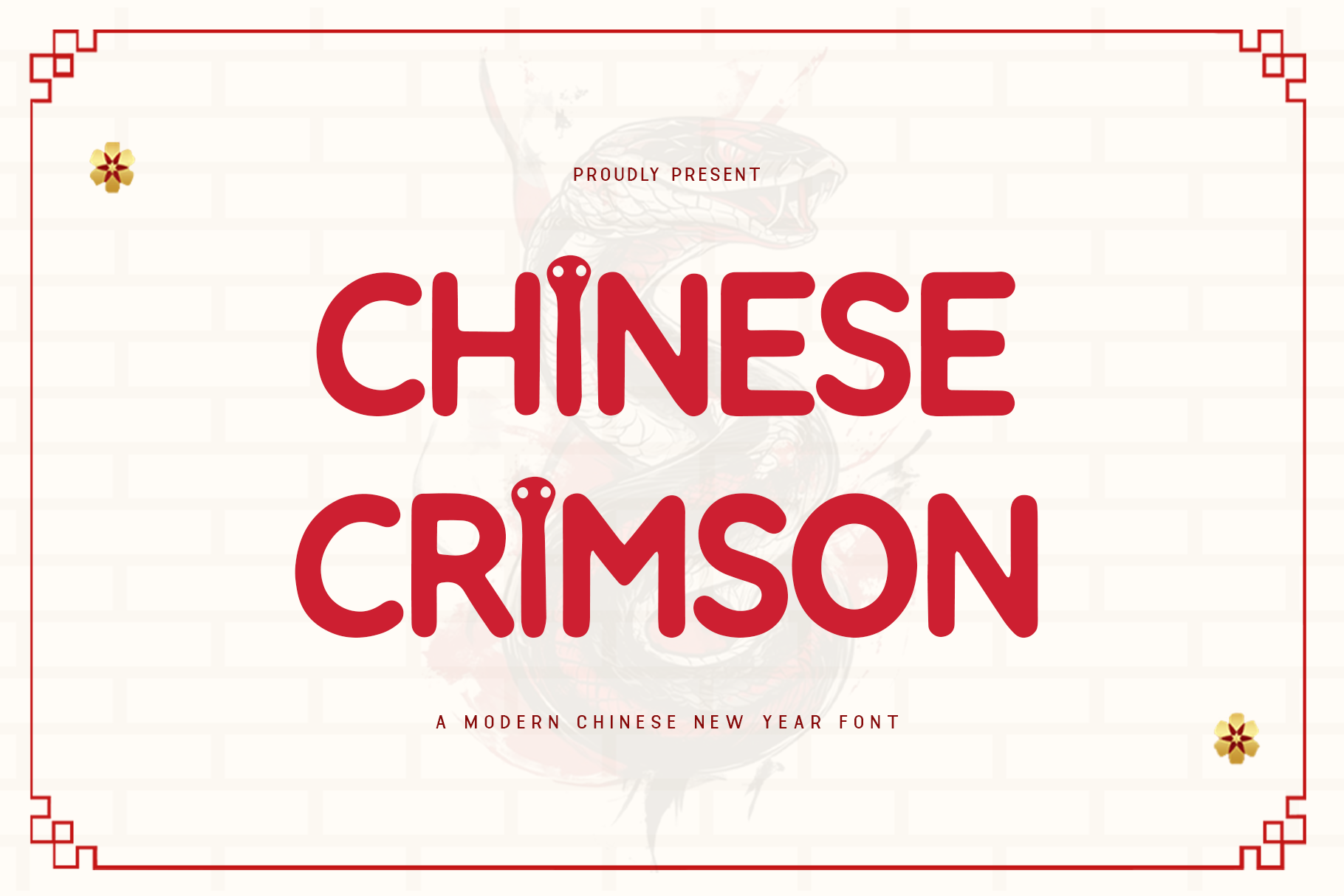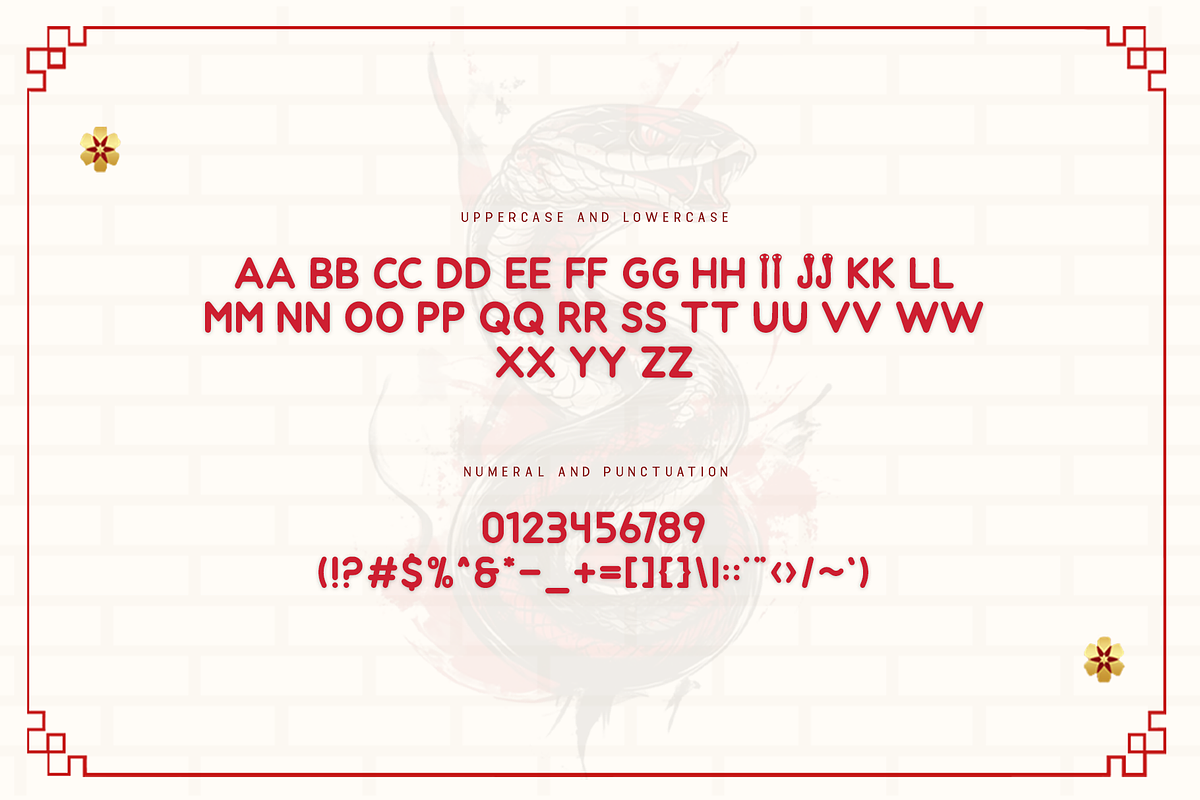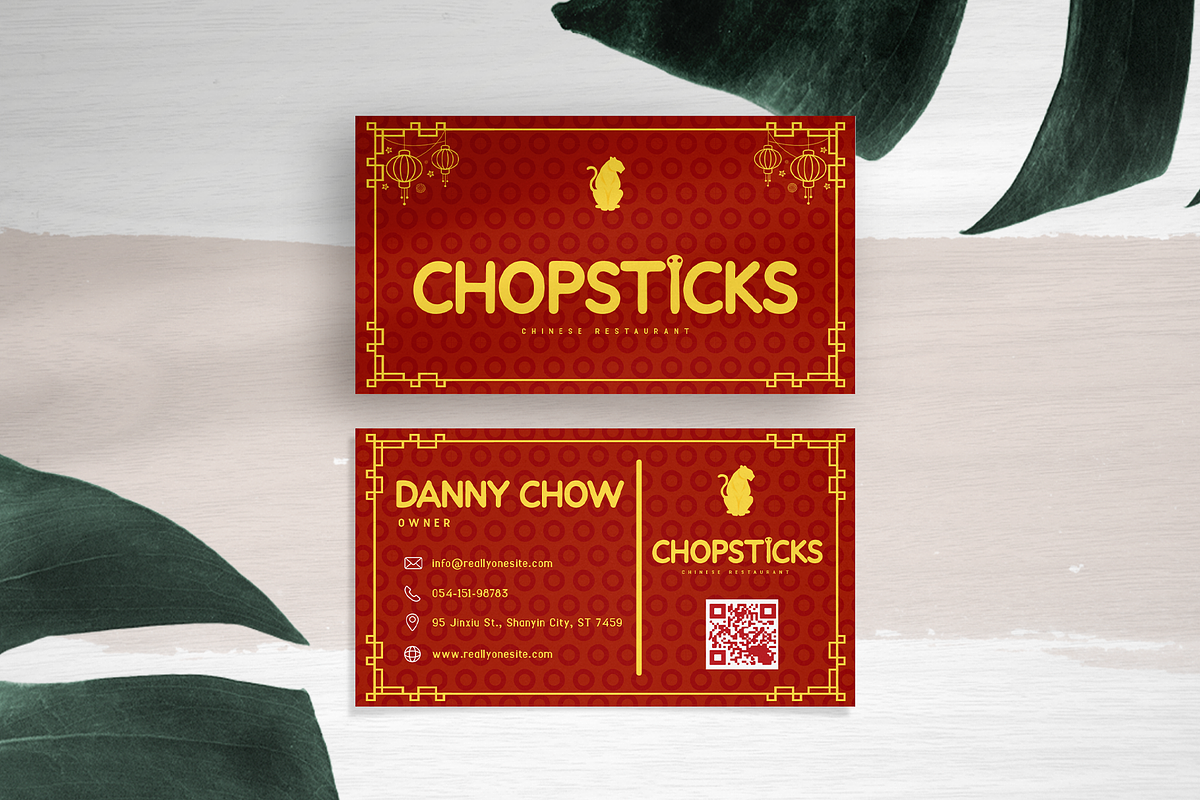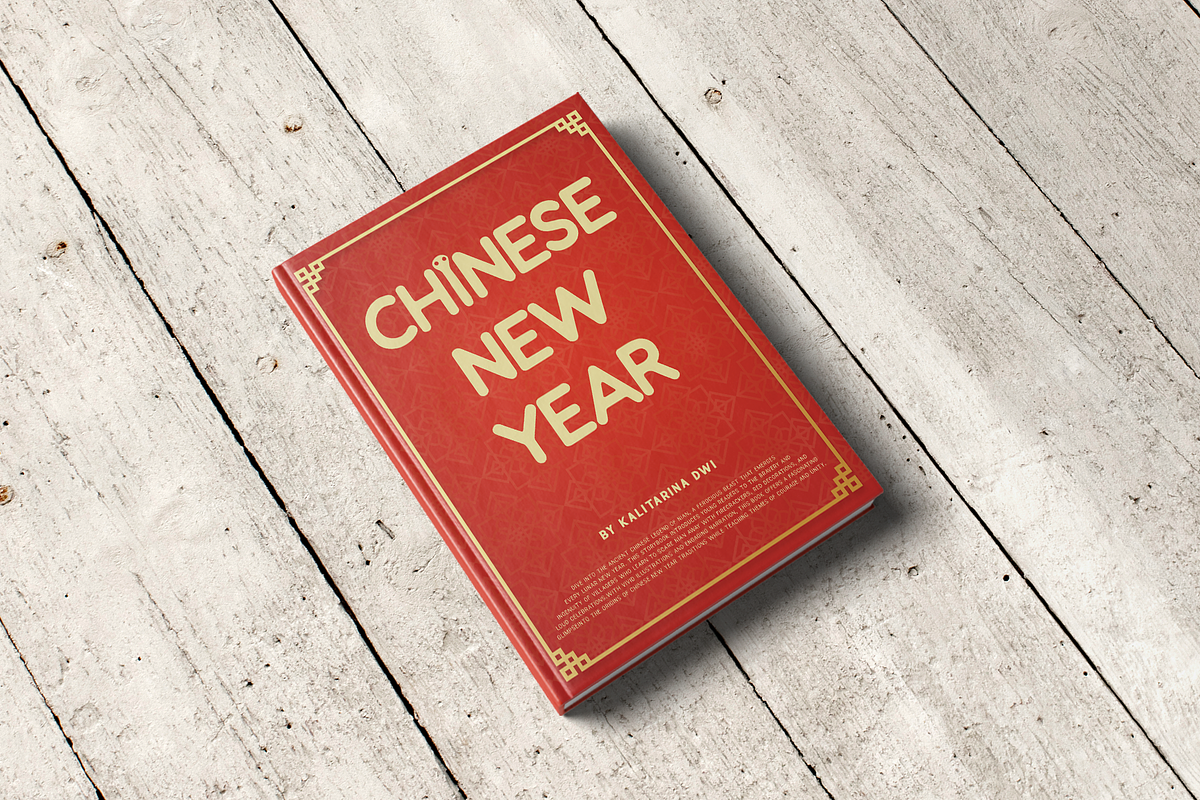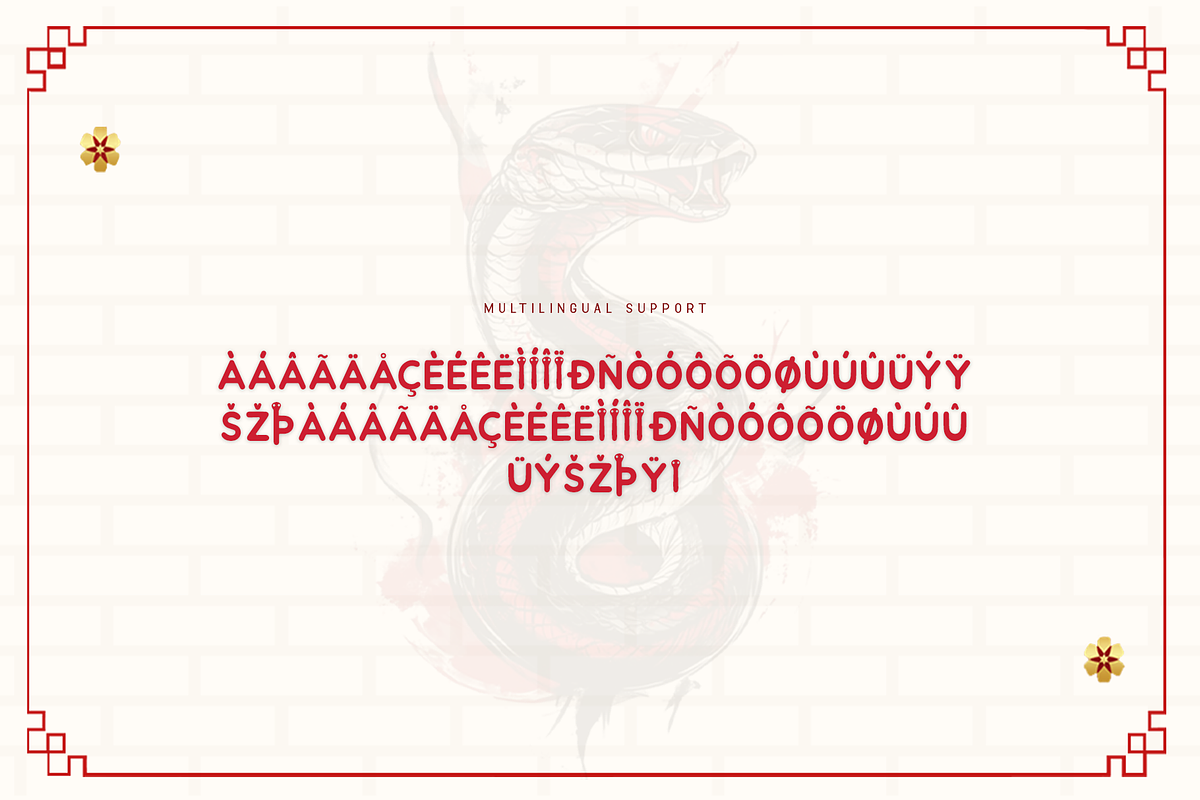
Chinese Crimson-Modern Chinese Font
Chinese Crimson - A Modern Chinese New Year Font
Introducing Chinese Crimson, a modern font that radiates the bold and vibrant energy of the color red, symbolizing good fortune and happiness in Chinese culture. This typeface is perfect for celebrating the Lunar New Year with style and impact.
Featuring strong lines and dynamic shapes, Chinese Crimson is ideal for invitations, event posters, branding, and promotional materials. Its contemporary design reflects both the festive spirit and the deep-rooted traditions of the Chinese New Year.
Complete with a full character set, multilingual support, and versatile applications, Chinese Crimson ensures your designs stand out with festive flair. It’s your perfect partner for creating bold, culturally rich designs.